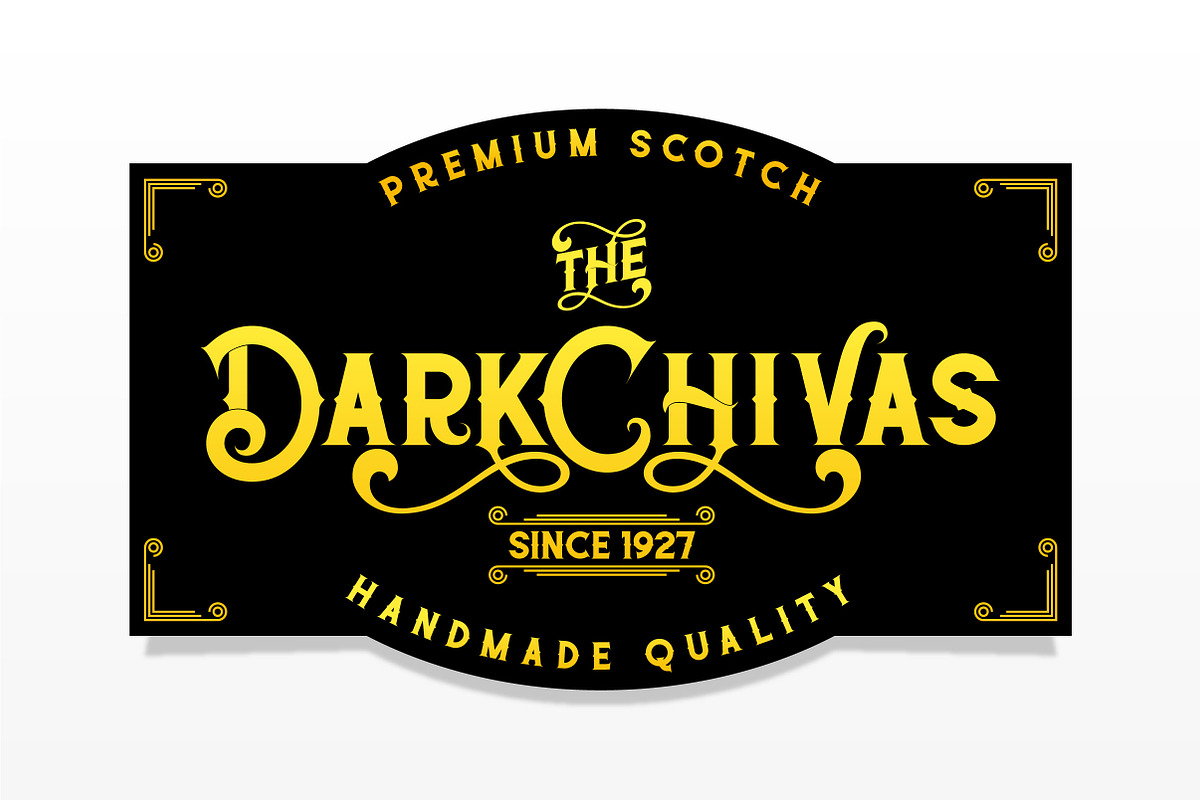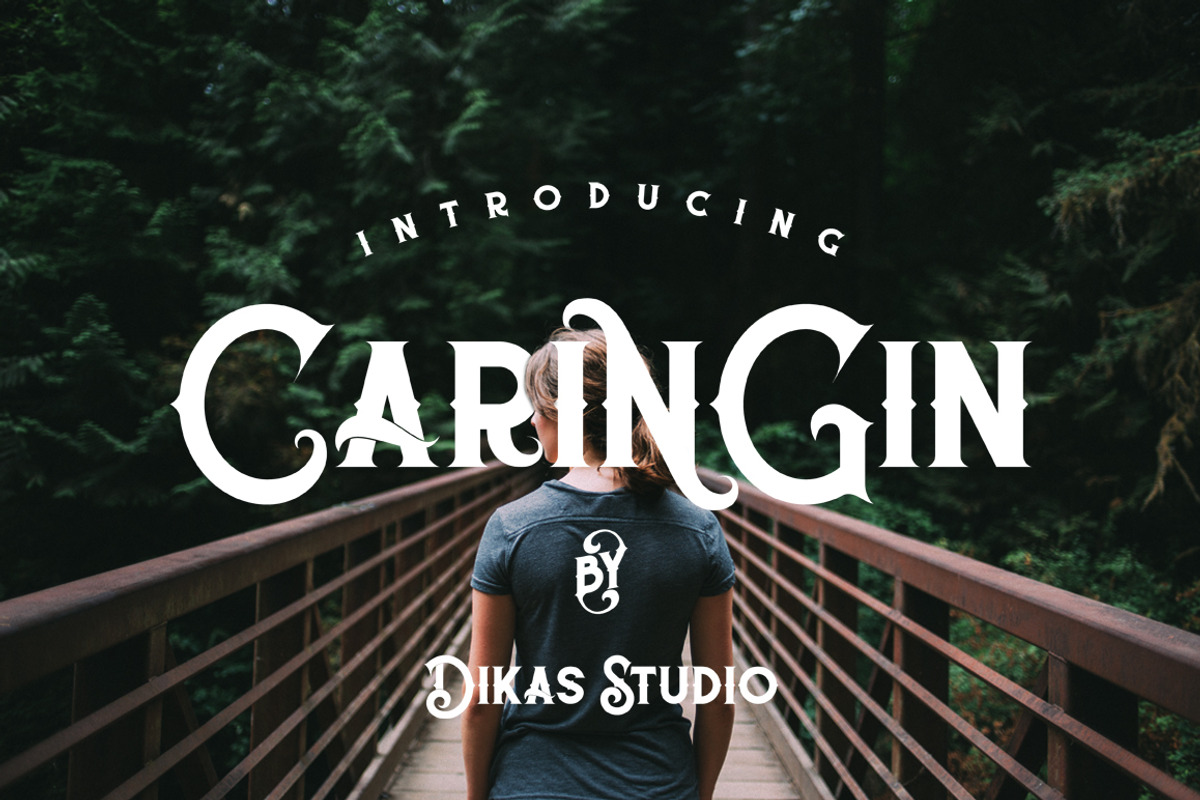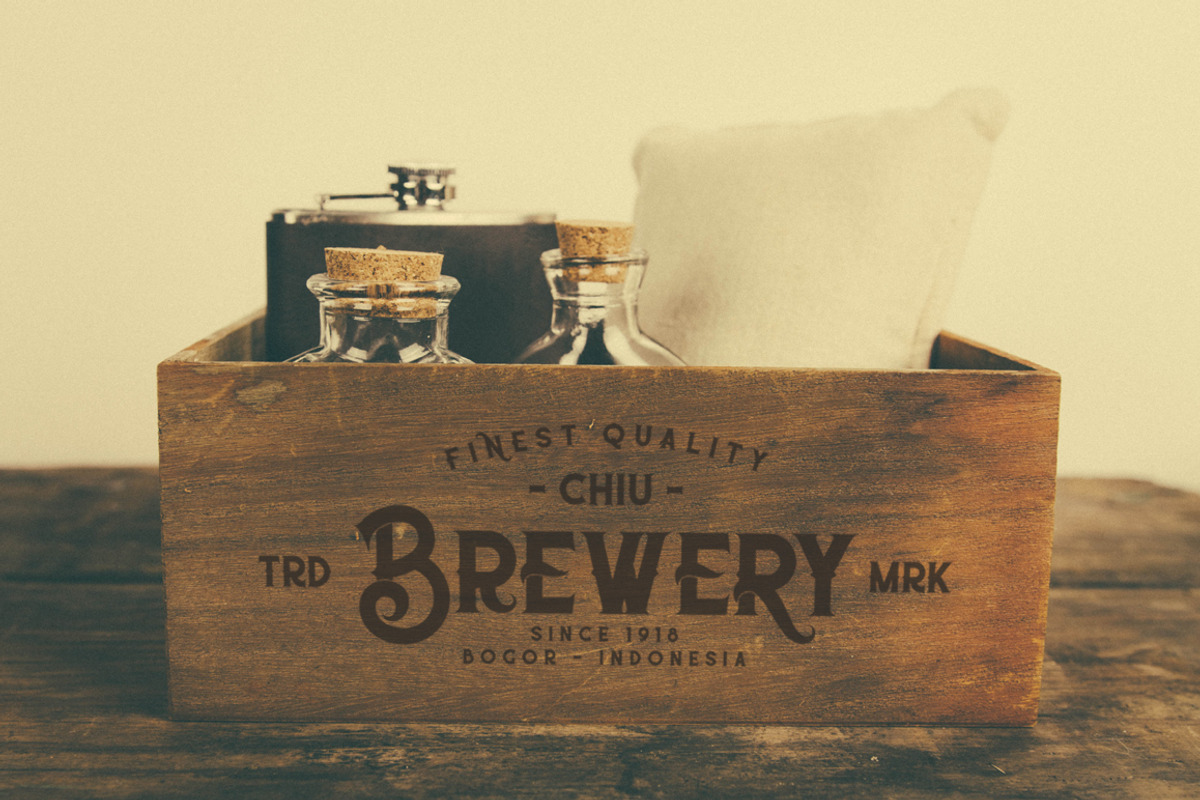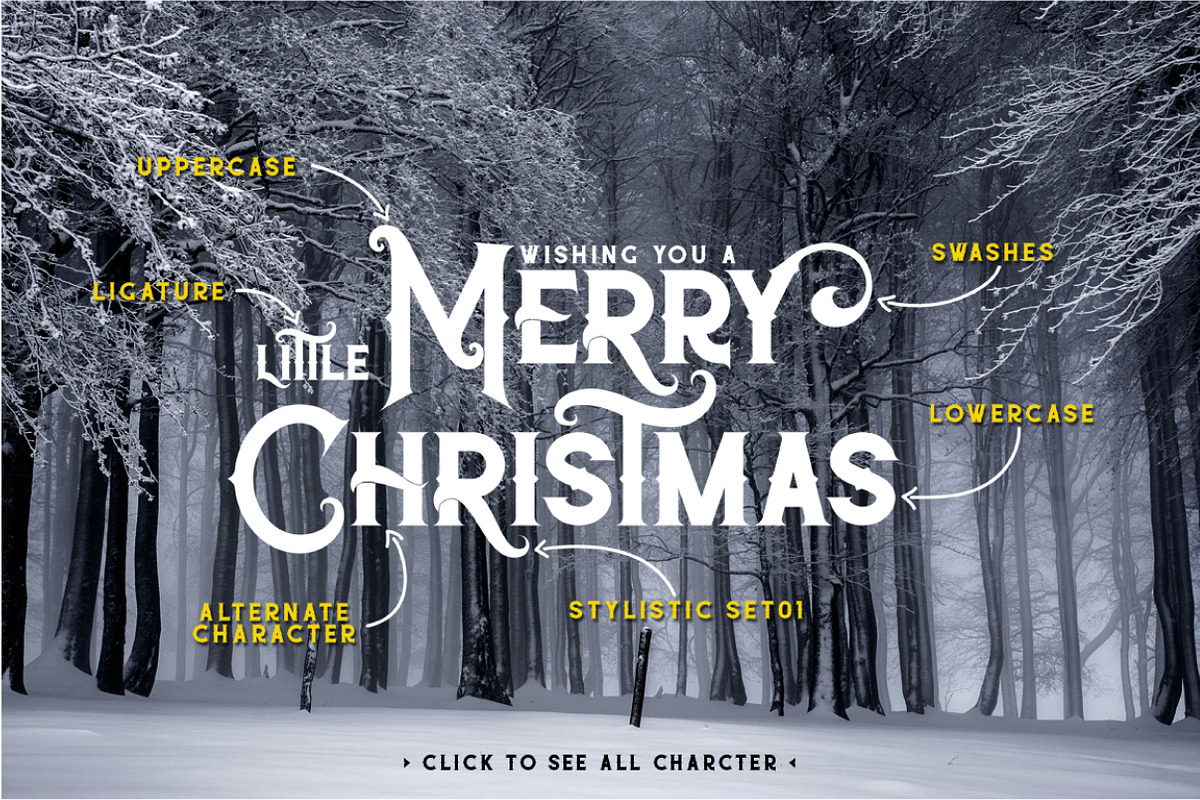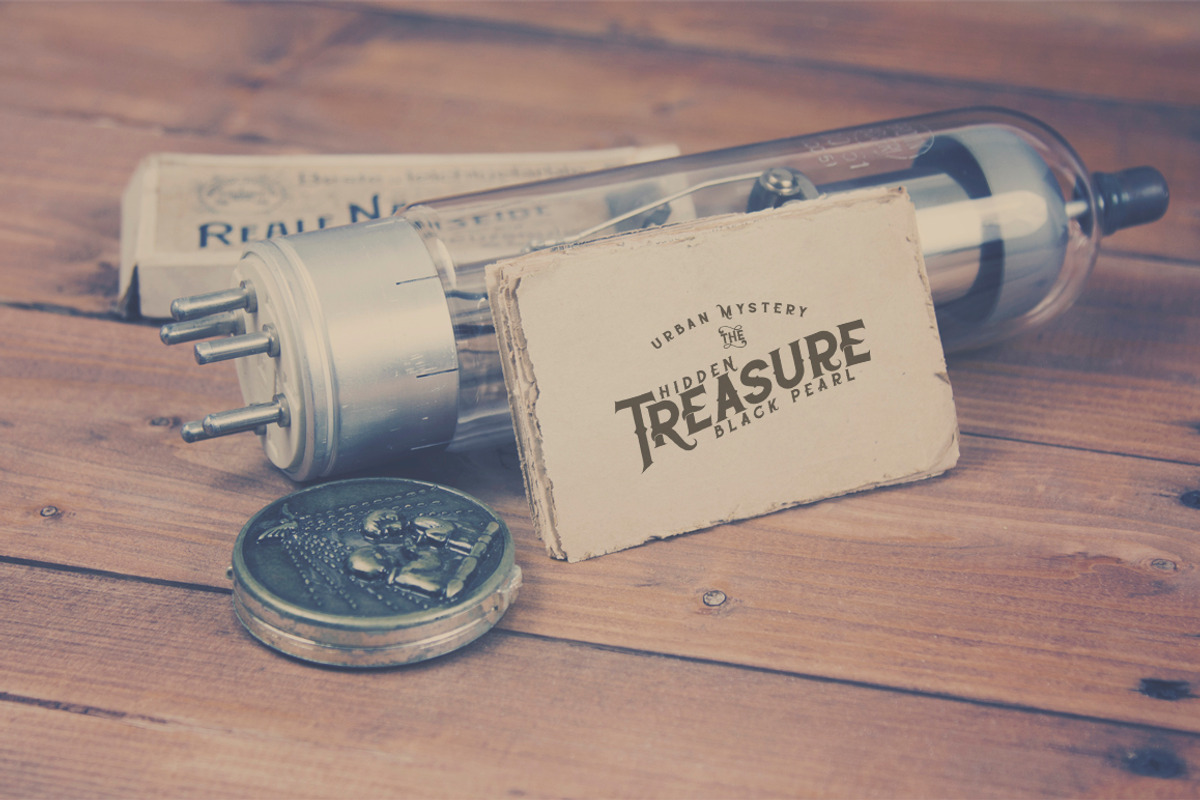
Caringin Typeface
Caringin Typeface by Dikas Studio is a font selected for branding, posters, packaging, typography.
- Feature Uppercase Lowercase Punctuation and Number Multilingual Language Alternate Character Stylistic Set 01 Ligature Swashes and Catchword
- You can mix any alternate character, stylistic alternate and swashes, its very helpfull to make this font look stylish.
Why Caringin Typeface is worth a look
Caringin Typeface by Dikas Studio fits naturally into Branding, posters, packaging, typography.